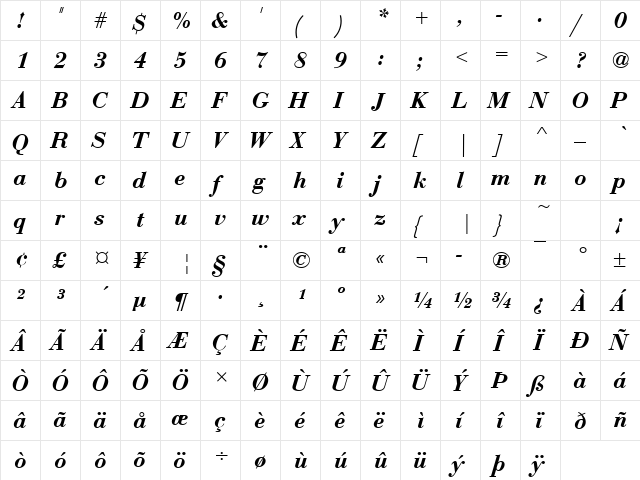
BauerBodTDemBol Italic Font Preview
BauerBodTDemBol Italic
BauerBodTDemBol Italic Font Details
Design Context for BauerBodTDemBol Typeface
BauerBodTDemBol is a composed and adaptable typeface that performs quietly and consistently across a wide range of design contexts. The slanted form adds forward momentum and visual energy.
Pro Tip: Try BauerBodTDemBol for annotation and caption copy alongside an upright companion — the contrast in angle creates a dynamic but ordered typographic system.